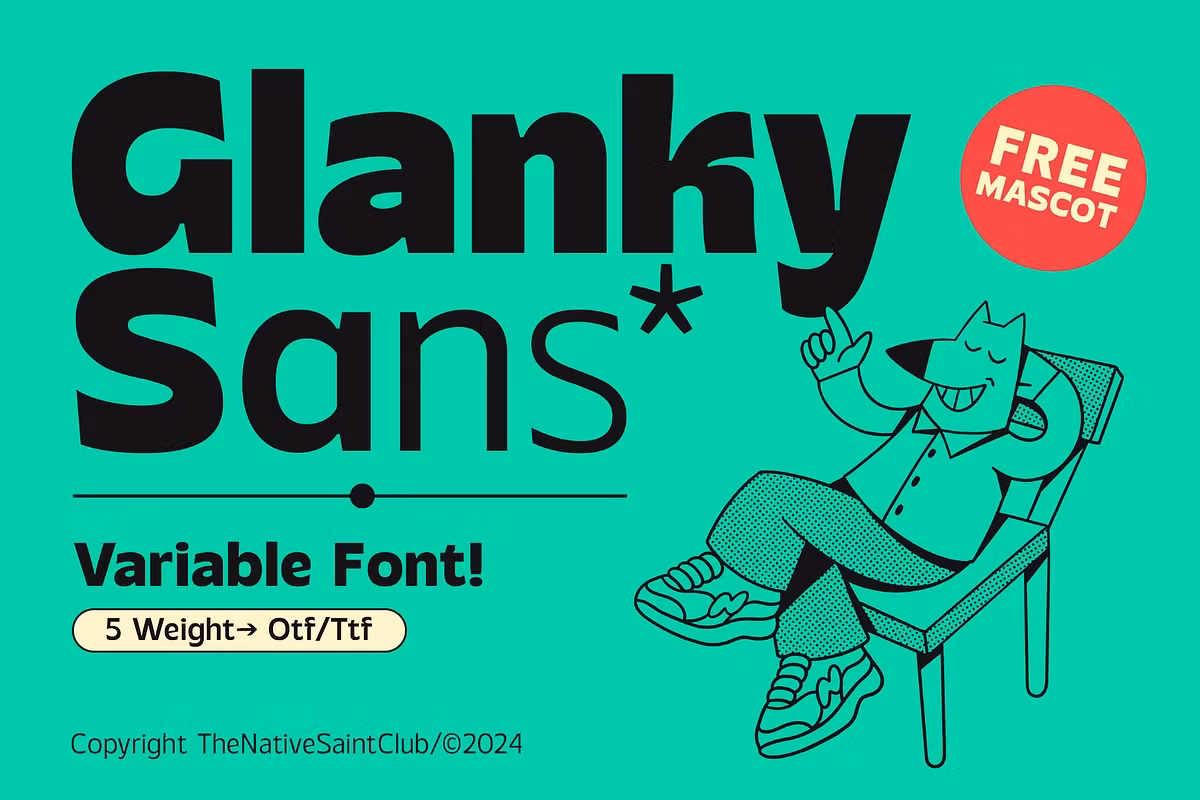
Transform your designs with Glanky Sans Variable Fonts Free Download — a modern, adaptable sans-serif typeface designed to give you ultimate flexibility. With its variable font technology, Glanky Sans allows you to adjust weights, widths, and styles to suit your specific design needs, all in one dynamic font file.
Perfect for web design, app interfaces, logos, branding, and any project that requires a sleek and clean look, Glanky Sans makes it easier to create responsive and polished typography. It includes a wide range of variations, uppercase and lowercase characters, numerals, punctuation, and multilingual support — giving you all the tools to bring your creative vision to life.